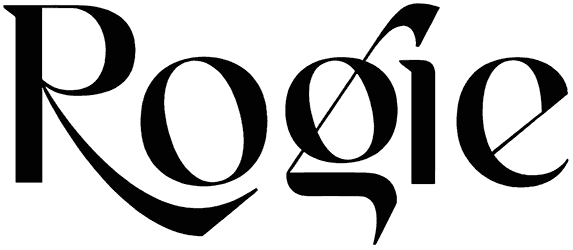
Rogie Font
Looks like it’s finally the time to shake things up in your design routine and create even better logos with the exquisite style of Rogie. It’s not one of those ordinary serif fonts that only elevate your text with a classic flavor.
Everything about it is also so elegant that you’ll find yourself using this ligature font a lot more than you think. Design your beauty salon logos and fashion magazine titles with Rogie, and it’ll be off the hook.